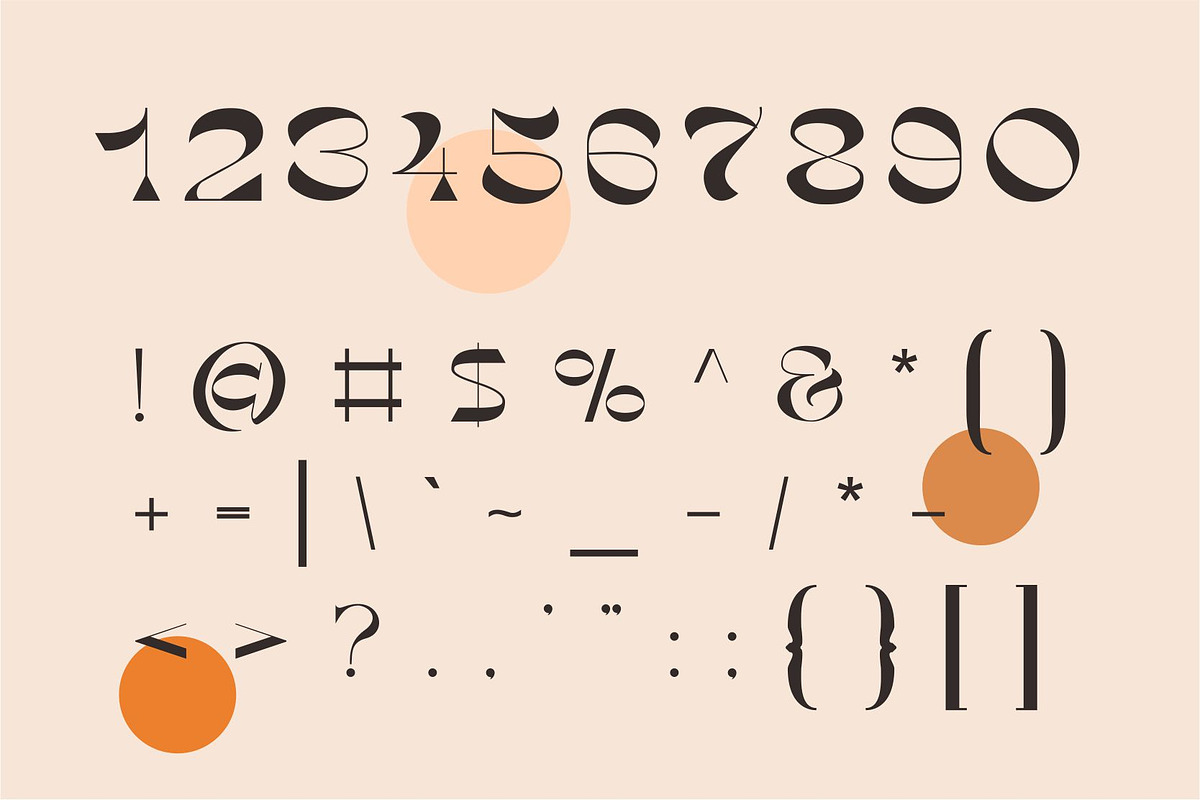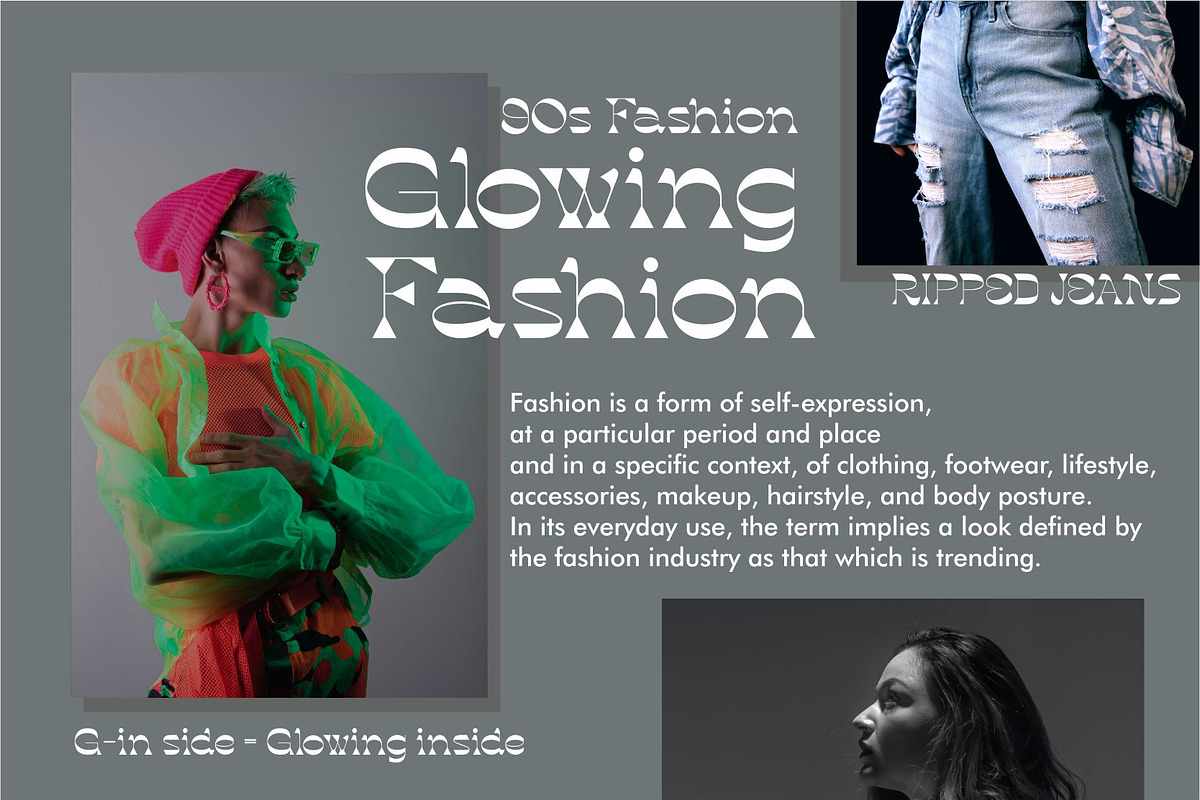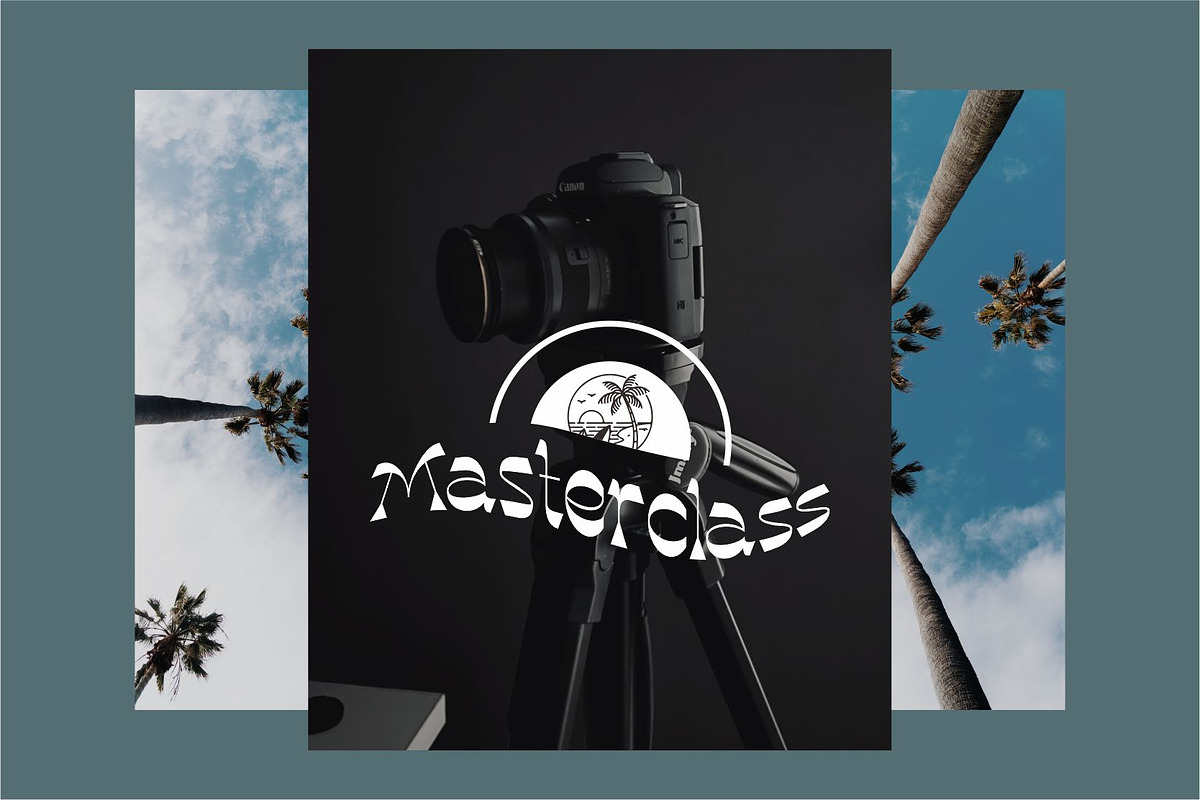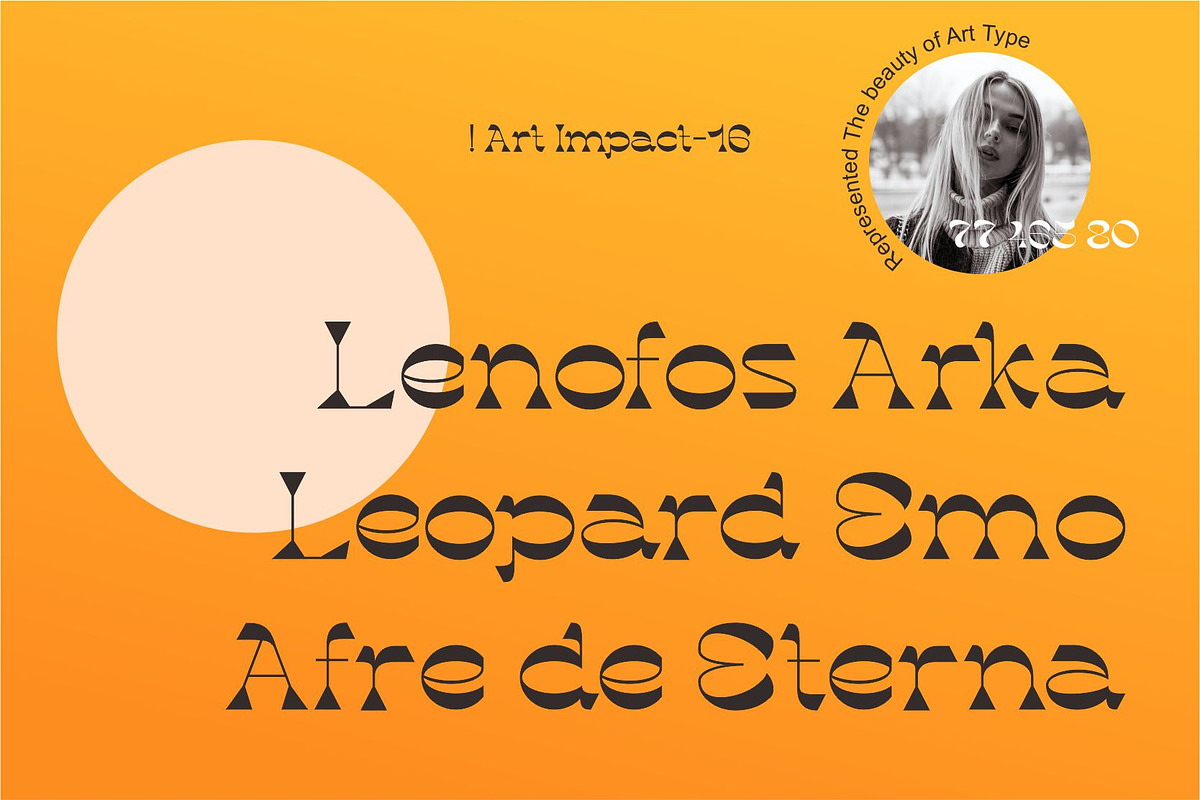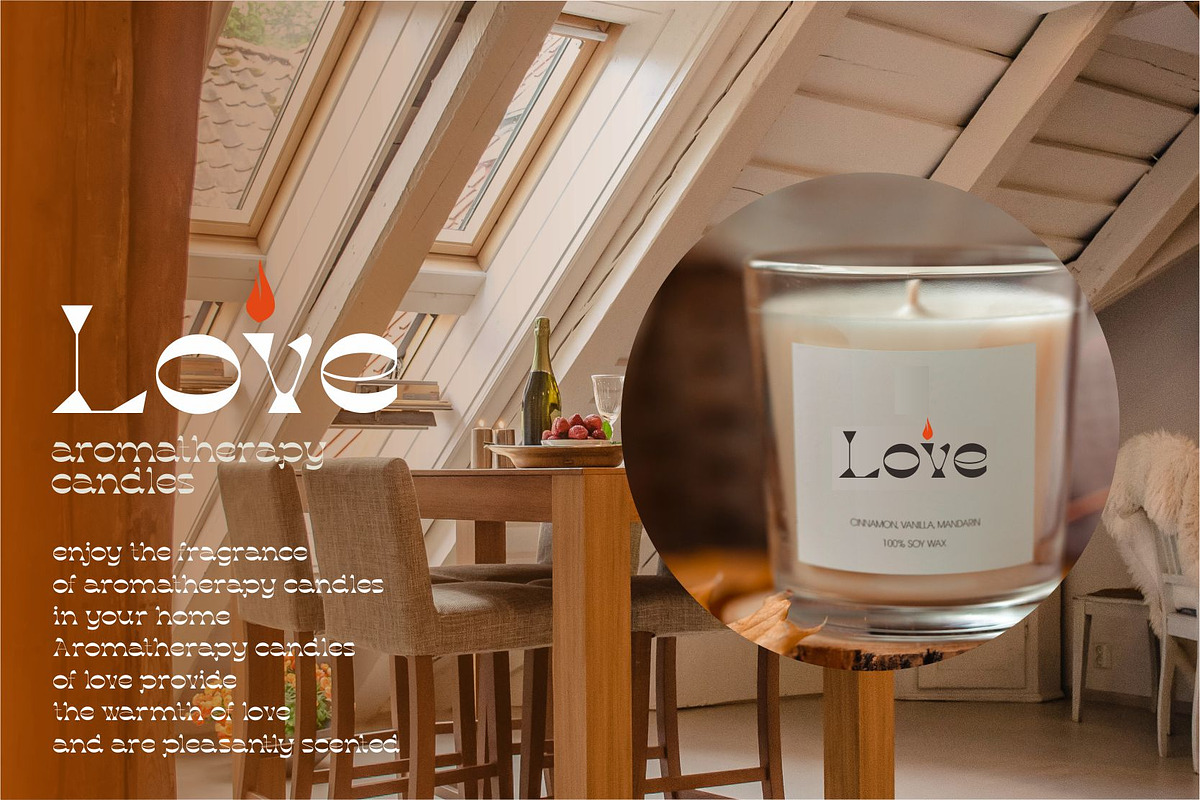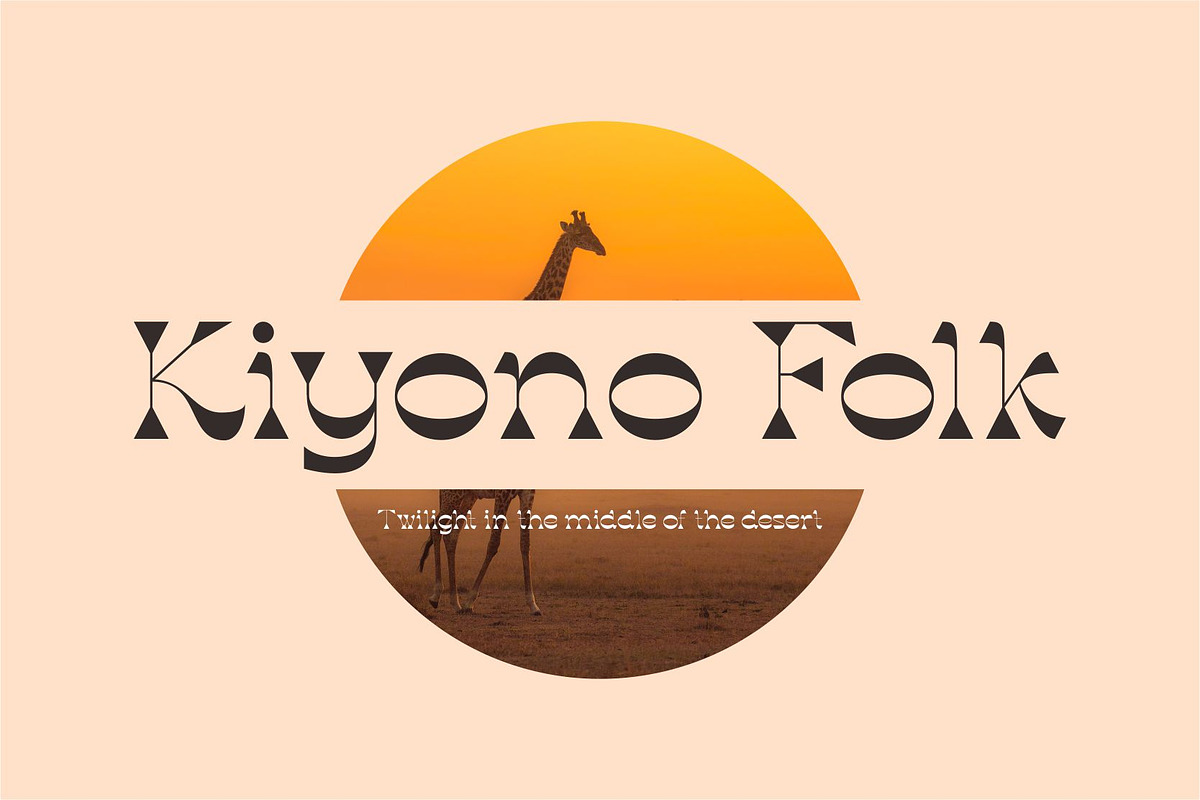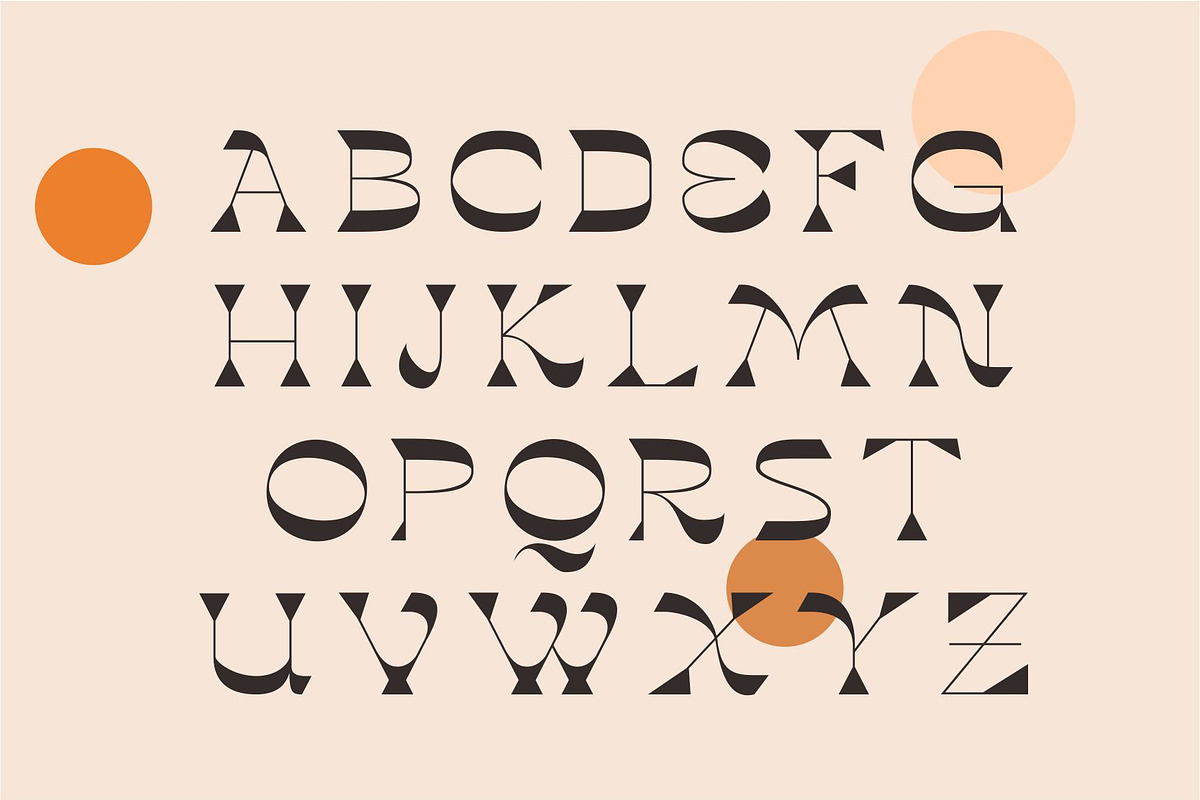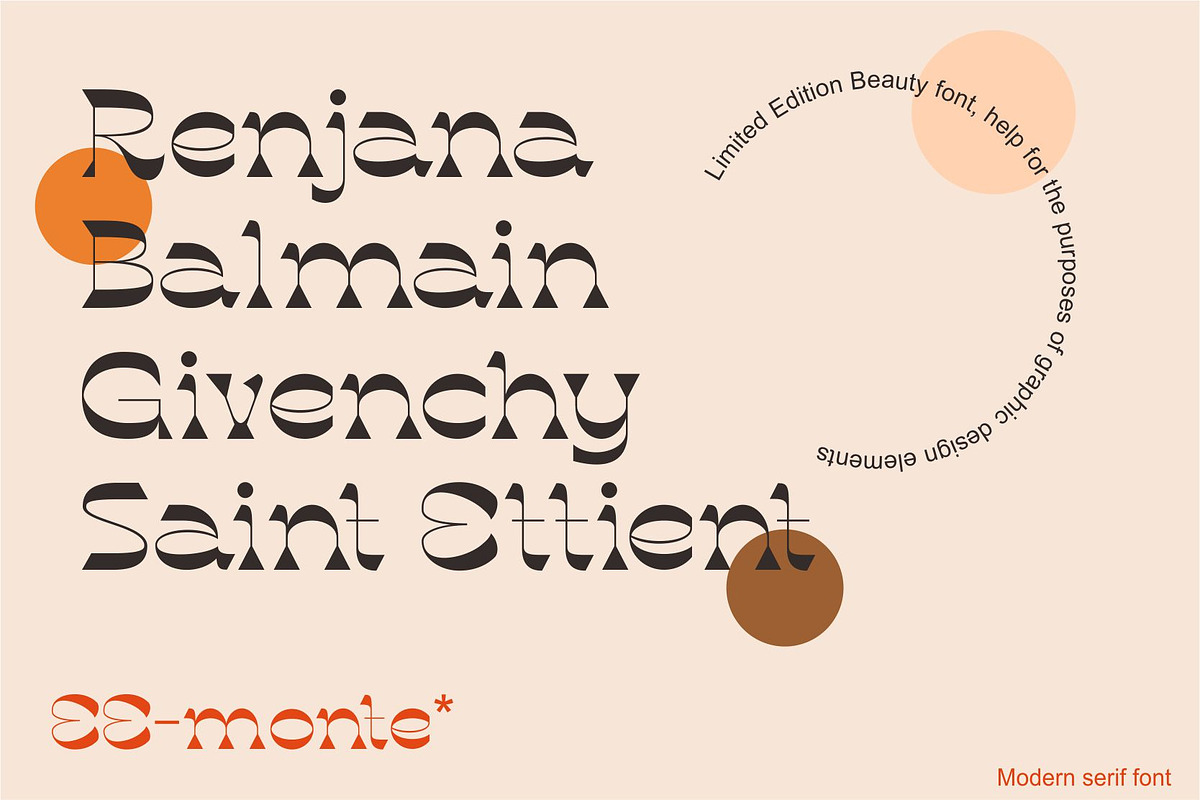
Rioky | Modern Classic
Rioky fonts includes uppercase letters, numerals, a large range of punctuation. Serif font with modern classic reverse contrast style. Created for poster, web design, branding, illustrations, badges and some other works.